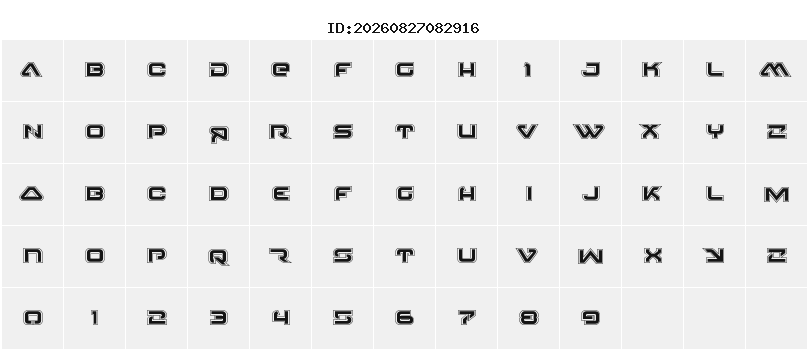
• Font Name: 4114 Blaster Academy
About 4114 Blaster Academy.ttf
4114 Blaster Academy.ttf is a modern, elegant sans-serif font designed for ultimate readability and visual harmony. Perfect for branding, headlines, web design, and print materials.